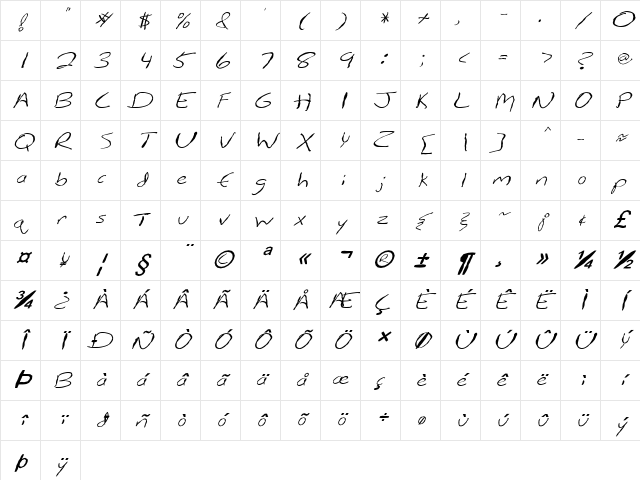
FZ HAND 12 MANGLED ITALIC Normal
Design Context for FZ HAND 12 MANGLED ITALIC
FZ HAND 12 MANGLED ITALIC flows with the natural rhythm of handwritten lettering, making it ideal for designs that call for warmth and personal expression.
Font Pairing: Combine FZ HAND 12 MANGLED ITALIC with a simple geometric sans for maximum contrast - the tension between flowing curves and clean structure is a classic typographic pairing.
Pro Tip: Use FZ HAND 12 MANGLED ITALIC for short runs of text - names, titles, or taglines. Extended body copy in script faces tires the eye quickly.